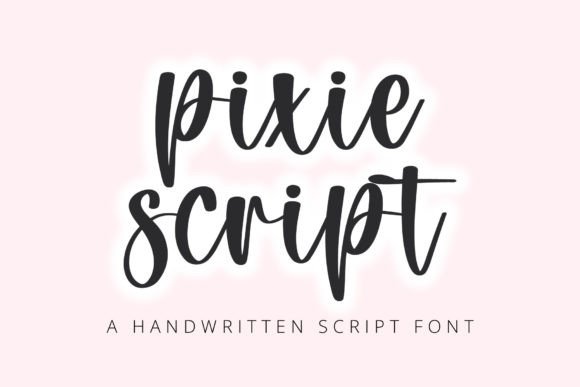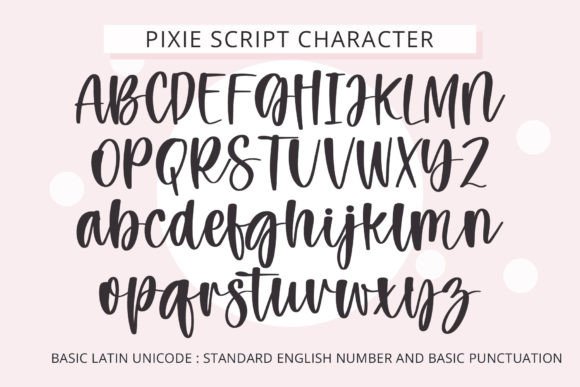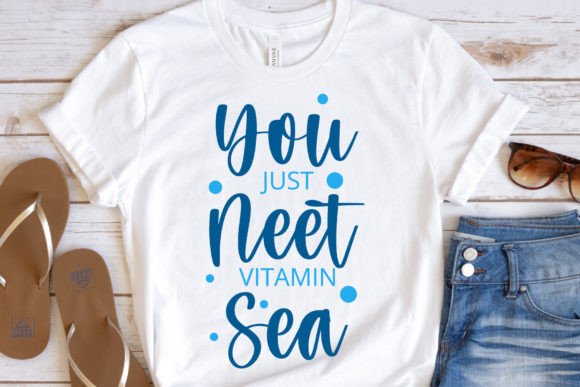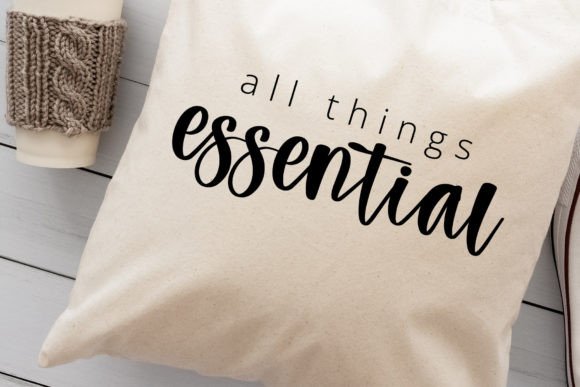
Pixie Script Font: Cute Handwritten Calligraphy for Cricut & DIY
About the Pixie Script Font
Introducing the Pixie Script Font, a beautifully crafted typeface designed to elevate your creative projects. Pixie Script is a sweet and cute handwritten font. Fall in love with its incredibly versatile style and use it to create gorgeous wedding invitations, beautiful stationary art, eye-catching social media posts, and much more!
Pixie Script’s playful charm makes it ideal for projects requiring a touch of whimsy, such as branding for children’s products, wedding stationery, or social media graphics. It excels in headlines, short quotes, and logos where its handcrafted quality shines. However, its delicate nature makes it unsuitable for body text or lengthy paragraphs; readability suffers at smaller sizes.
Consider pairing Pixie Script with a clean sans-serif like Open Sans for a balanced contrast, or a classic serif such as Garamond for a more traditional feel. A geometric sans-serif font, such as Montserrat, would add a touch of modern sophistication. Avoid pairing it with other script fonts to prevent visual clutter.
The overall personality is friendly and approachable, conveying a sense of warmth and handcrafted authenticity. It’s best suited for brands that value approachability and a lighthearted aesthetic.
Pixie Script Font Usage Examples
Pixie Script Font Example